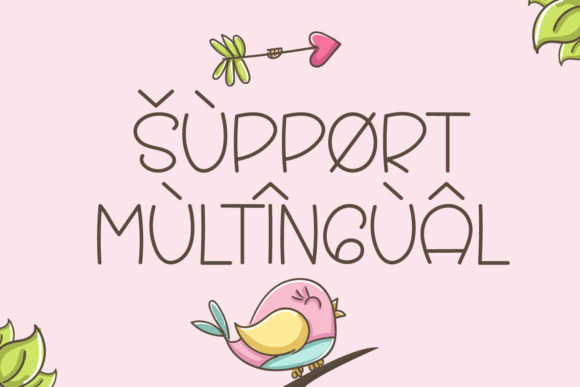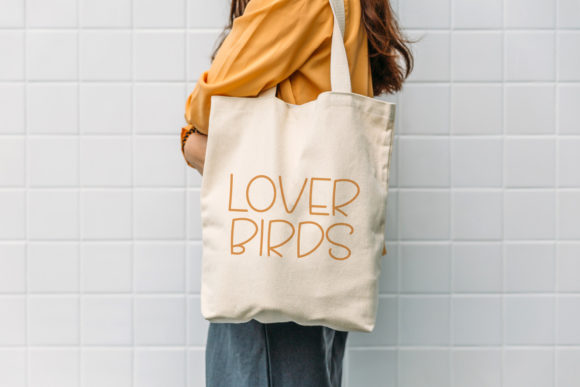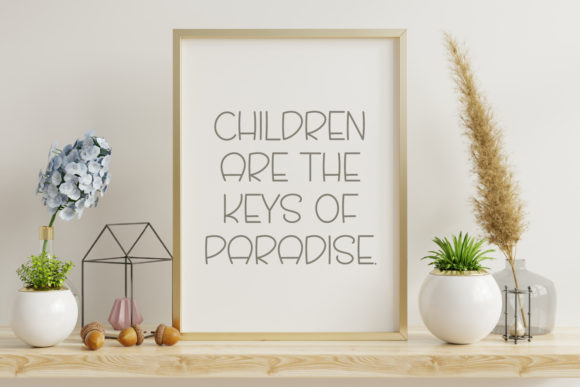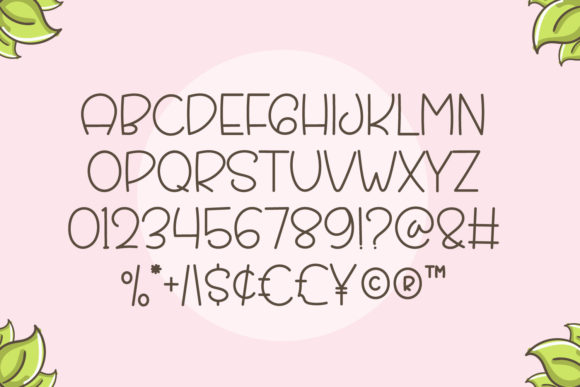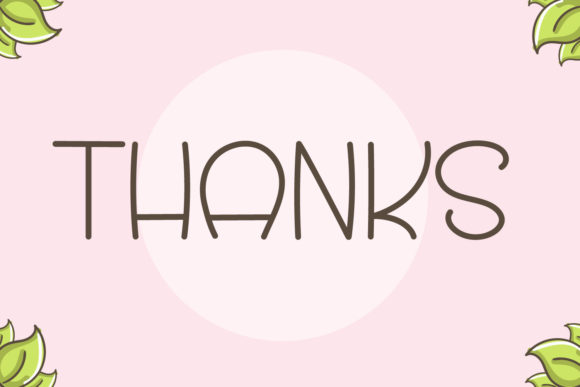
Introducing Fly Bird Font: Add a Touch of Whimsy to Your Designs
Are you tired of using the same old fonts in your designs? Do you want to add a dash of personality and whimsy to your creations? Look no further than Fly Bird Font, a quirky and fun sans serif font that’s sure to delight. With its charming and slightly uneven characters, Fly Bird Font is the perfect choice for designers and crafters looking to add a happy, sophisticated look to their work.
What Makes Fly Bird Font So Special?
Fly Bird Font is a unique and eye-catching font that’s sure to stand out from the crowd. Its sans serif design gives it a clean and modern look, while its slightly uneven characters add a touch of whimsy and playfulness. This font is perfect for designers who want to add a bit of personality to their work, whether it’s a logo, a poster, or a social media graphic.
Key Features of Fly Bird Font
- Quirky and fun design: Fly Bird Font has a playful and charming design that’s sure to add a smile to your face.
- Sans serif design: The clean and modern sans serif design makes Fly Bird Font perfect for a wide range of design projects.
- Slightly uneven characters: The slightly uneven characters give Fly Bird Font a unique and eye-catching look that’s sure to stand out.
- Happy and sophisticated look: Fly Bird Font is perfect for designers who want to add a happy and sophisticated look to their work.
Fly Bird Font is perfect for designers and crafters who want to add a touch of personality to their work. Whether you’re designing a logo, a poster, or a social media graphic, Fly Bird Font is sure to delight. Its unique and eye-catching design makes it perfect for a wide range of design projects, from children’s books to branding and advertising.
Tips and Tricks for Getting the Most Out of Fly Bird Font
- Use it sparingly: Fly Bird Font is a bold and eye-catching font, so use it sparingly to add emphasis to your design.
- Pair it with other fonts: Fly Bird Font pairs well with other sans serif fonts, so try pairing it with a clean and modern font for a unique look.
- Experiment with colors: Fly Bird Font looks great in a wide range of colors, so experiment with different colors to find the perfect look for your design.
Fly Bird Font is a quirky and fun sans serif font that’s sure to add a touch of personality to your designs. With its charming and slightly uneven characters, Fly Bird Font is perfect for designers and crafters who want to add a happy, sophisticated look to their work. So why not give Fly Bird Font a try and see how it can elevate your designs?